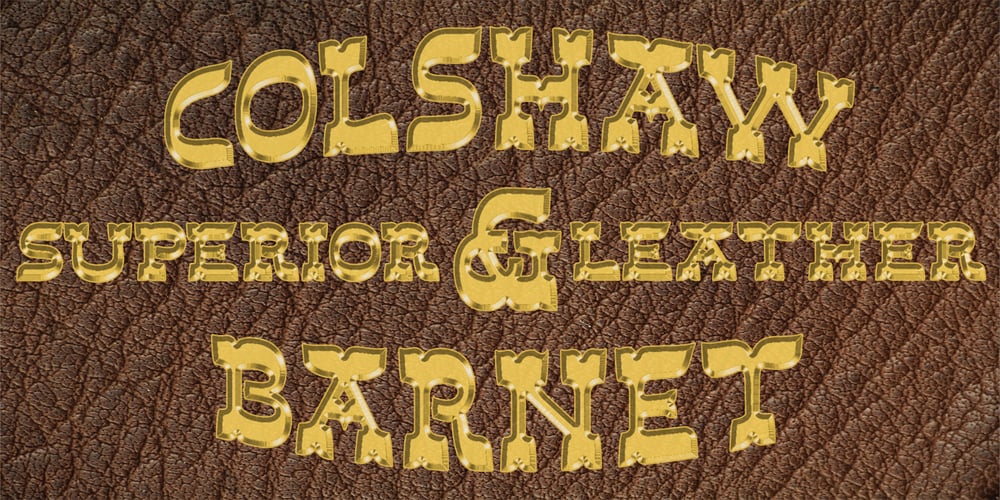
Sasparillo
Sasparillo font
Sasparillo Font Family was designed by Paul James Lloyd and published by Greater Albion Typefounders. Sasparillo contains 1 styles and family package options. Sasparillo is an “extreme” Tuscan face, with reversed emphasis, by which we mean the horizontals are far heavier than the verticals. Recreate the spirit of the “Wild West” with a sense of fun!